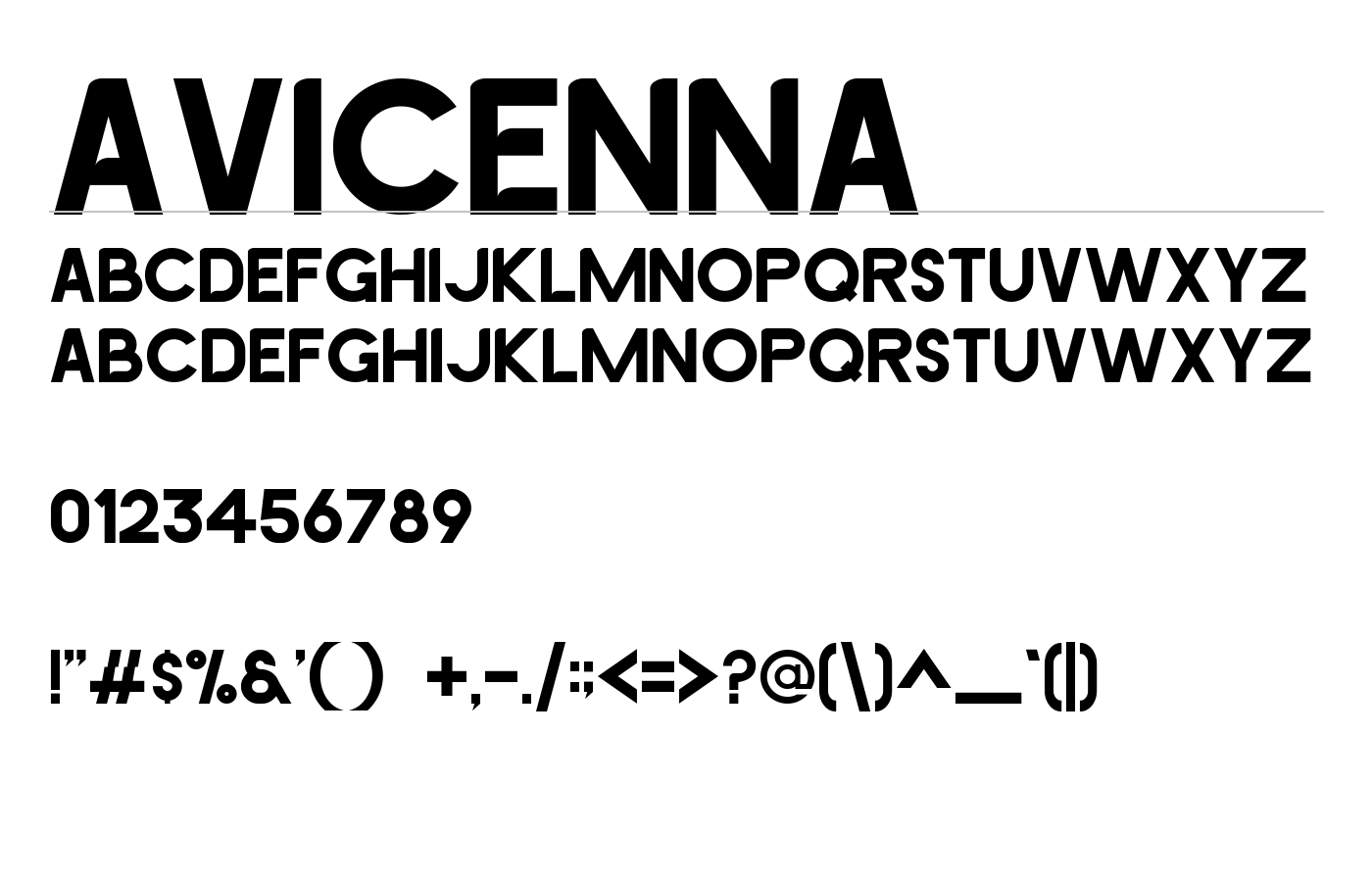
Avicenna is a bold, geometric sans serif font with a strong modern presence. Its sharp, clean lines and consistent stroke weight give it a solid and confident feel, while the slightly condensed proportions and distinctive letterforms, such as the pointed tail of the Q and unique ampersand, add personality. This font works well for striking headlines, branding, and editorial designs where clarity and impact are essential.
AVICENNA Font
About AVICENNA Font
| Font family | AVICENNA Font |
| Designer | Artspace 2018 |